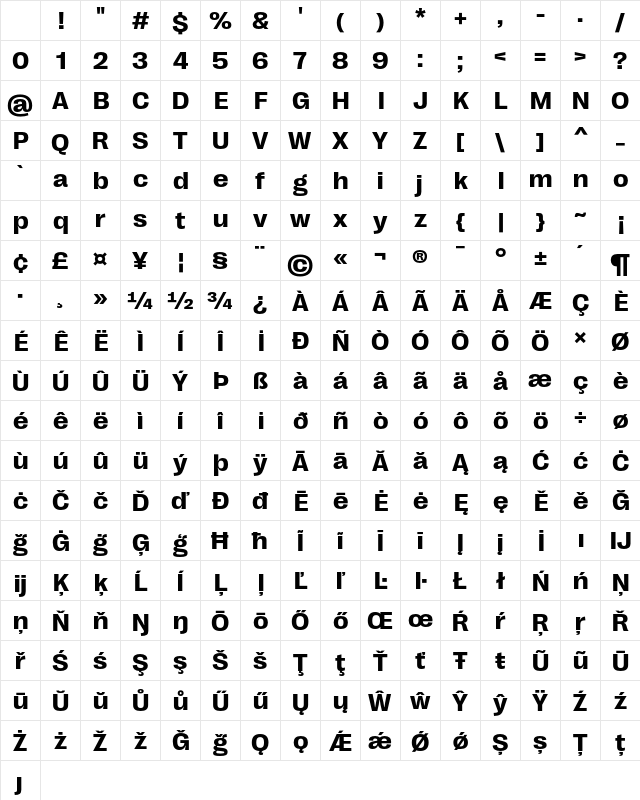
Complete Right Grotesk Wide Bold glyph index. Displaying only characters natively supported by Right Grotesk Wide Bold font.
Right Grotesk Wide takes a clean, functional approach - its unadorned letterforms prioritise legibility and work reliably across screen and print environments. Its bold stroke weight gives it real presence on the page.
Font Pairing: Use Right Grotesk Wide for headlines alongside a lighter-weight sans or serif for body copy to establish clear visual hierarchy.
Pro Tip: Use Right Grotesk Wide for UI labels, navigation, and short-form body copy where clean legibility is the priority.